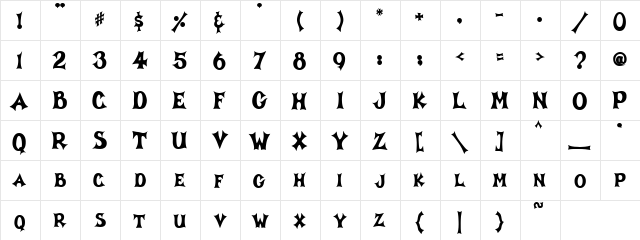
PC Picket Fence Regular
Design Context for PC Picket Fence Typeface
PC Picket Fence is a composed and adaptable typeface that performs quietly and consistently across a wide range of design contexts.